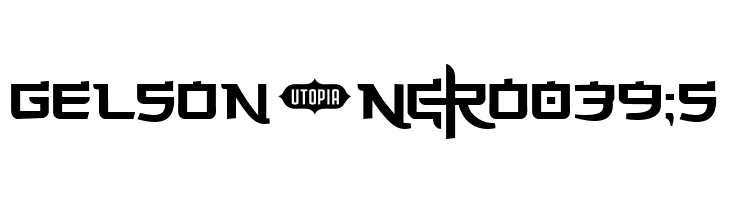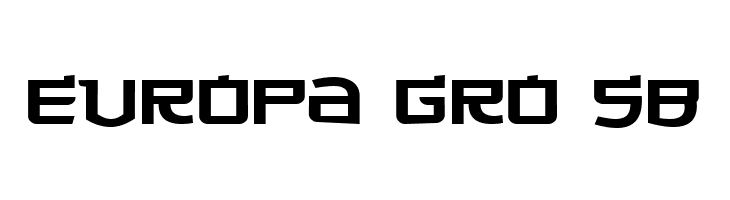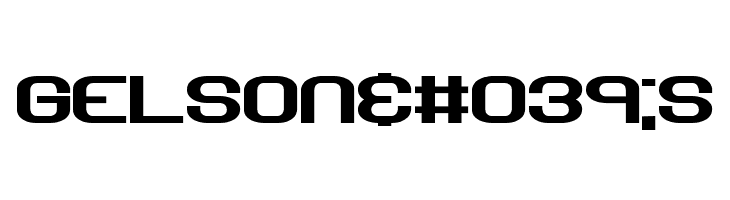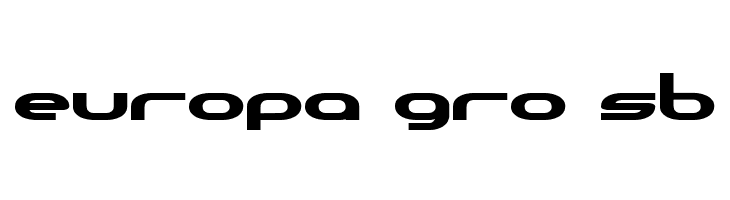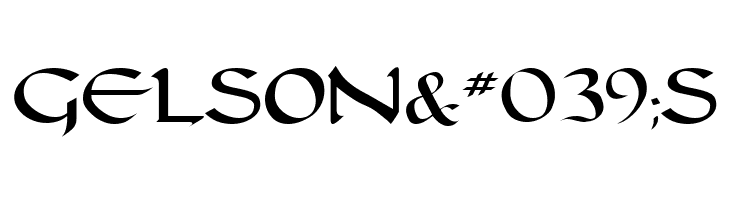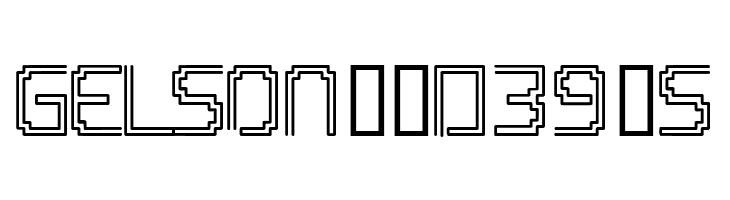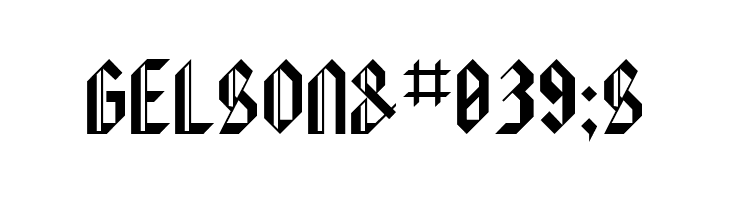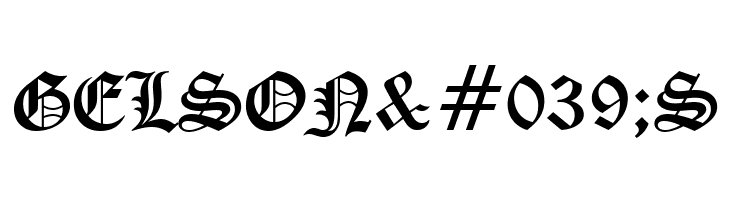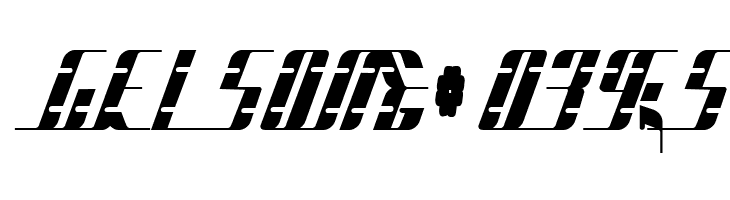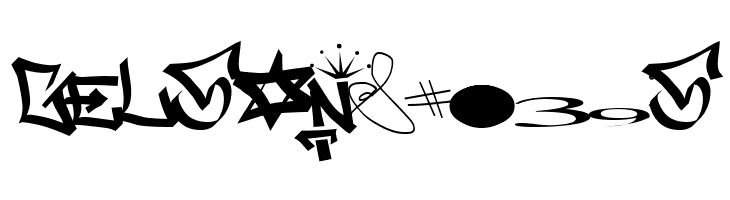
A bold, futuristic font with sharp, angular edges and a geometric structure.
A medieval-inspired font with sharp, angular strokes and intricate detailing.
A pixelated, digital-style font with angular, blocky characters.
A bold, angular font with a Gothic-inspired design and high contrast strokes.
A bold, graffiti-inspired font with sharp, angular lines and an urban aesthetic.
A futuristic, angular, condensed italic font with a sleek, modern design.
A bold, italic, futuristic font with angular, geometric letterforms.
A futuristic, angular italic font with a sleek, modern design.
A futuristic, geometric font with angular, modular letterforms.
A modern, geometric font with sharp, angular characters.
A dynamic, angular font with a sleek, modern feel.
A traditional Gothic font with ornate, angular letterforms and dramatic curves.
A bold, geometric font with angular letterforms and a modern aesthetic.
A bold, edgy font with sharp, angular strokes and an industrial feel.
A geometric, angular font with a modern and futuristic style.
A bold, expanded, and italic futuristic font with geometric and angular design.
A bold, edgy font with sharp, angular lines and a playful, rebellious style.